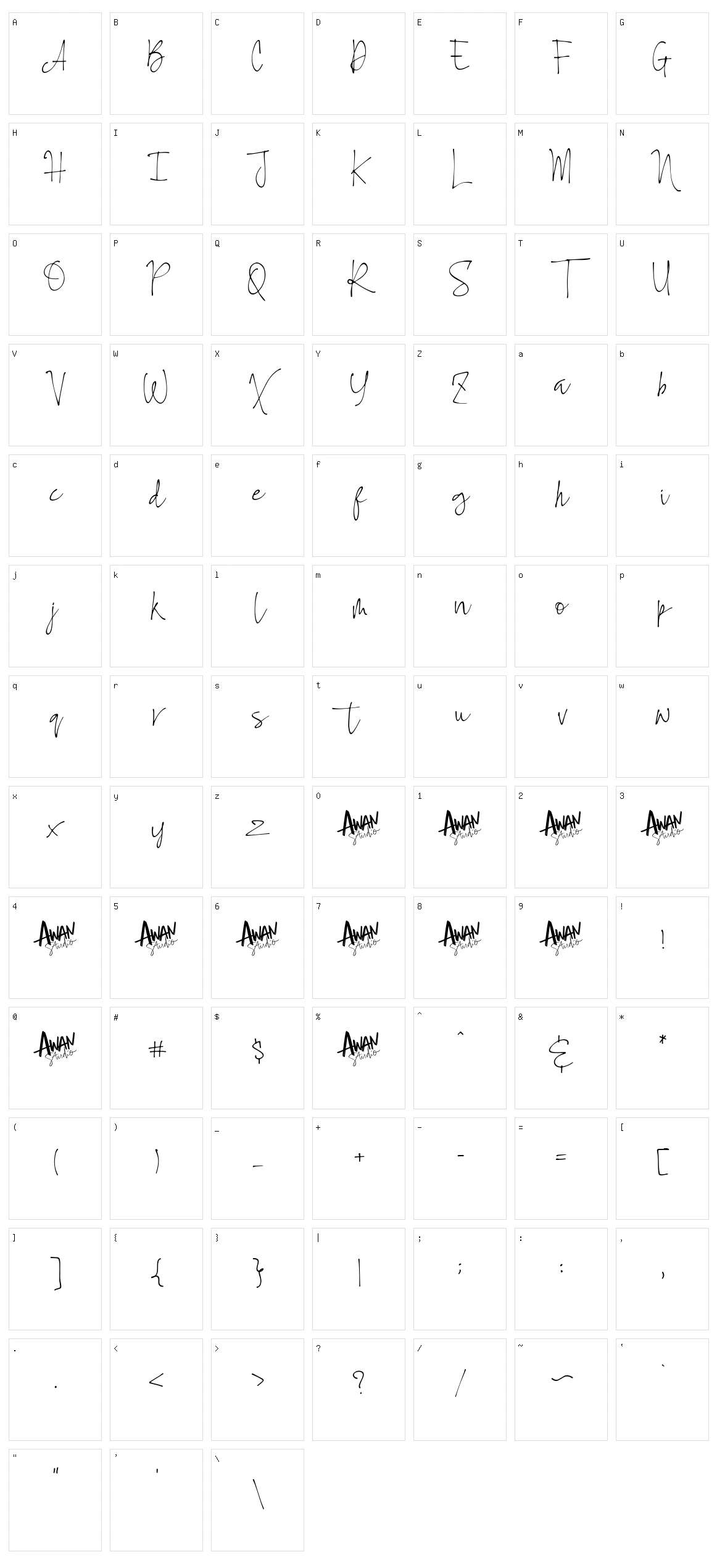
The free font Bummill is carefully designed by Awanstudioz, showcasing a thoughtful balance of creativity and usability and falls under the Script font style. When you download the ZIP file, it contains only 26.43 KB of font files, making it lightweight and quick to download. Please review the license details below to understand permitted usage and distribution rights. If license information is not available, we recommend using this font for personal projects only or contacting the author directly for commercial usage permissions.